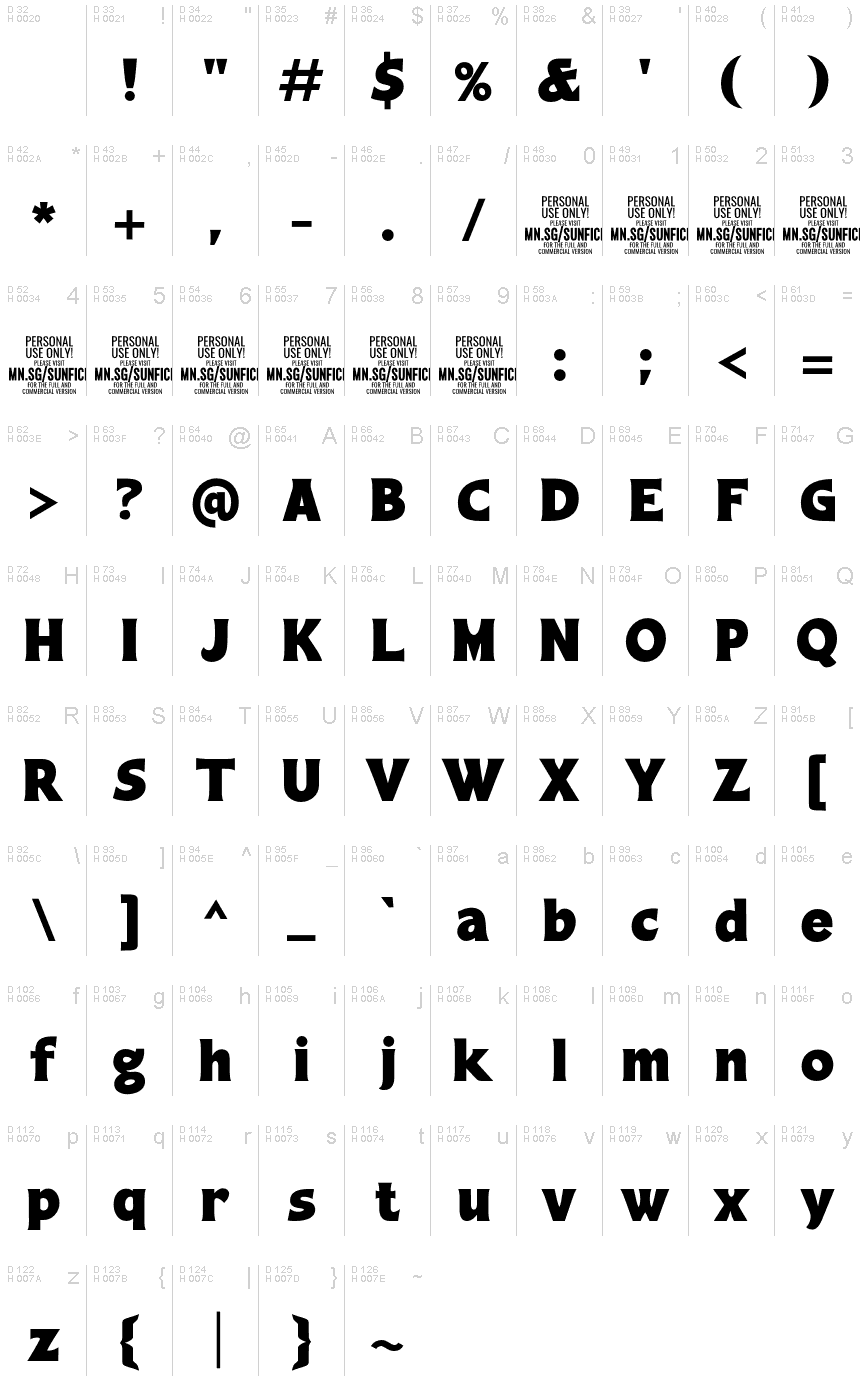
Sunfice PERSONAL USE ONLY Regular
Sunfice, the latest addition to Mans Greback's sublime collection of display fonts, is an extra-bold retro font that exudes vibrancy and energy. Its bold strokes are reminiscent of the bygone era, adding a touch of nostalgia to any design project. This font is perfect for creating impactful headlines, posters, and branding materials that demand attention. Its unique style and retro charm make it suitable for a wide range of projects - from vintage-themed events to modern-day campaigns that seek to stand out from the crowd. Elevate your design game with Sunfice - a timeless display font that leaves a lasting impression.